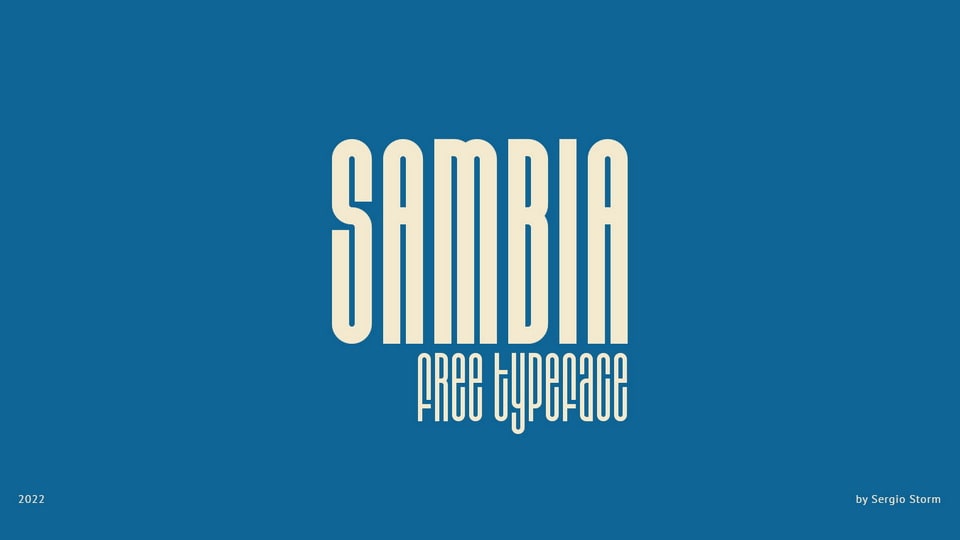
Download Sambia font, a geometric sans-serif, straight, extra condensed, monoweight typeface, accidental with sharp corners and closed aperture. Sambia is inspired by the Bauhaus style and tributes to the first half of the 20th century era.